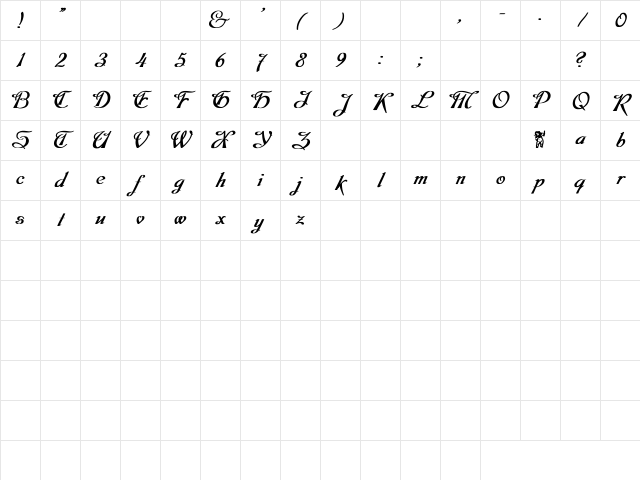
Dobkin Bold Bold Plain Free Font
Dobkin Bold Bold Plain
Style: Bold Plain
Complete Dobkin Bold Bold Plain glyph index. Displaying only characters natively supported by Dobkin Bold Bold Plain font.
Design Context for Dobkin Bold
Dobkin Bold is a composed and adaptable typeface that performs quietly and consistently across a wide range of design contexts. Its bold stroke weight gives it real presence on the page.